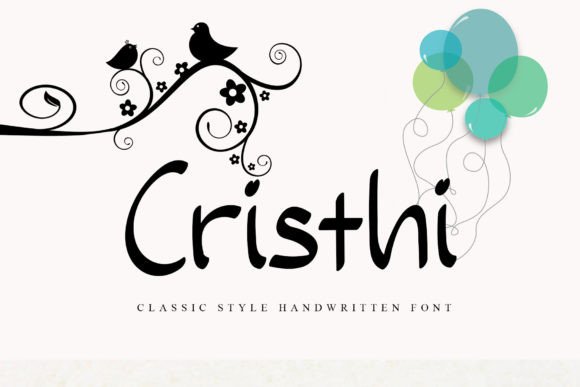
Embrace the captivating charm of Cristhi Font, the precious gem of display fonts, handcrafted by BabyArt, to awaken your creative visions and transform your projects into masterpieces. Cristhi's exquisite allure will ensnare your audience, leaving them spellbound by its enchanting presence.
Unleash your artistic prowess with Cristhi, the font that ignites the spark of creativity deep within you. Its elegant curves and graceful lines dance upon the page, like a symphony of visual delight, effortlessly elevating your designs and leaving an indelible mark on the hearts of your viewers.
Cristhi is the perfect partner for your creative endeavors, bringing sophistication and elegance to your website designs, branding projects, and social media platforms. Its versatility knows no bounds, adapting seamlessly to a myriad of applications, from captivating headlines that demand attention to captivating paragraphs that immerse readers in a world of words.
With Cristhi as your trusted companion, your designs will transcend the ordinary and embark on a journey of exceptional beauty. Its timeless appeal ensures that your creations will stand the test of time, leaving a legacy of excellence and visual mastery.
So, embrace the artistry of Cristhi Font today, and elevate your creative journey to new heights. Let its enchanting presence captivate your audience and transform your projects into works of art that inspire and enthrall.